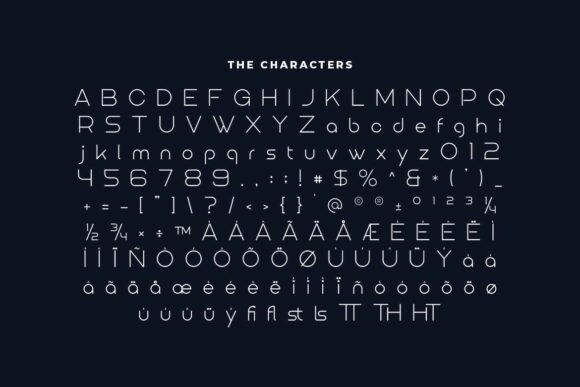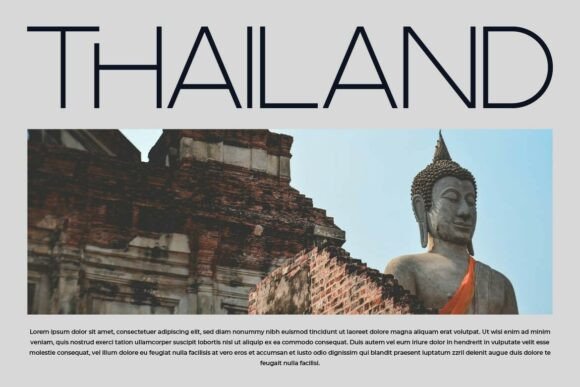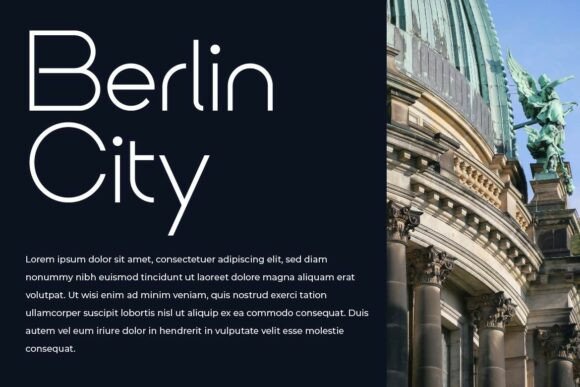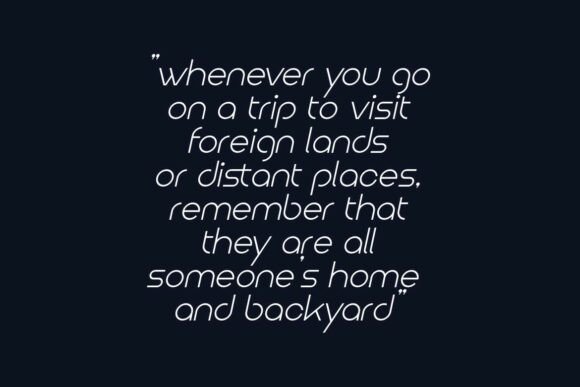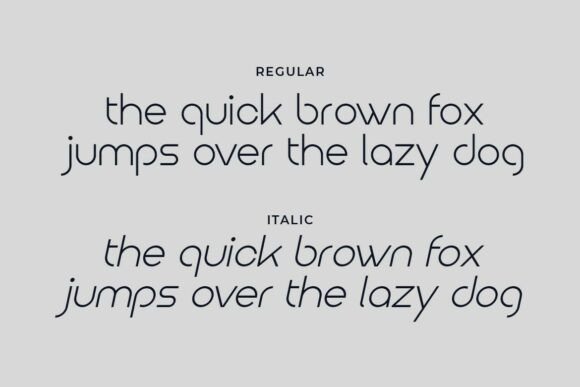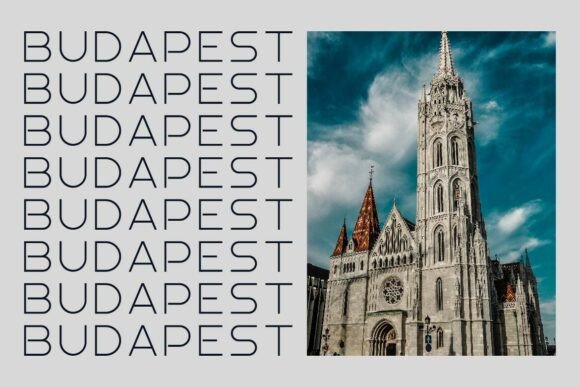
The Designer’s Delight: Exploring the Elegance of Belsy Font
I’ll never forget the time I was working on a branding project for a luxury skincare client. I had spent hours agonizing over the perfect color palette and logo design, but something was still off. That’s when it hit me – the font I was using was all wrong. It was too bold, too ornate, and completely clashed with the sophisticated vibe I was going for. After hours of scouring font websites and trying out different options, I stumbled upon Belsy Font. Its clean lines, smooth curves, and effortless elegance won me over, and it ended up being the perfect fit for the project. In this article, I’m excited to share my love for Belsy Font with you, and explore how you can make the most of this versatile and beautiful font.
An Honest Review of Belsy Font
What I Love About Belsy Font ✨
- ✅ Clean and Refined Design: Belsy Font boasts a sleek, sans-serif design that exudes modern sophistication.
- ✅ Smooth Curves and Balanced Spacing: The font’s smooth curves and balanced spacing make it a joy to read and use in a variety of design applications.
- ✅ Geometric Precision: Belsy’s geometric precision gives it a timeless quality that works perfectly for branding, editorial layouts, packaging, website design, and social media graphics.
- ✅ Versatility: Whether you’re designing a logo, brochure, or social media graphic, Belsy Font adapts effortlessly to any design style.
While Belsy Font is an exceptional font, it’s not without its limitations. For example:
- ⚠️ Limited Character Set: Belsy Font may not have an extensive character set, which could limit its use in certain languages or design applications.
- ⚠️ Not Suitable for Body Text: Due to its sleek and refined design, Belsy Font may not be the best choice for body text in certain design applications, such as novels or lengthy articles.
- Experiment with OpenType features, such as ligatures and stylistic alternates, to add an extra layer of sophistication to your design.
The Designer Inspiration Behind Belsy Font
Belsy Font was designed with the goal of creating a clean, refined, and sophisticated sans-serif font that embodies modern elegance. The designer’s inspiration was drawn from the world of luxury branding and editorial design, where simplicity and precision are key. The result is a font that’s both timeless and versatile, making it perfect for a wide range of design applications.
| Font Name | Belsy Font |
| Author | Artiveko |
Q: What is Belsy Font?
A: Belsy Font is a clean and refined sans-serif font designed to embody simplicity and contemporary sophistication.
Q: What is Belsy Font used for?
A: Belsy Font is perfect for branding, editorial layouts, packaging, website design, and social media graphics.